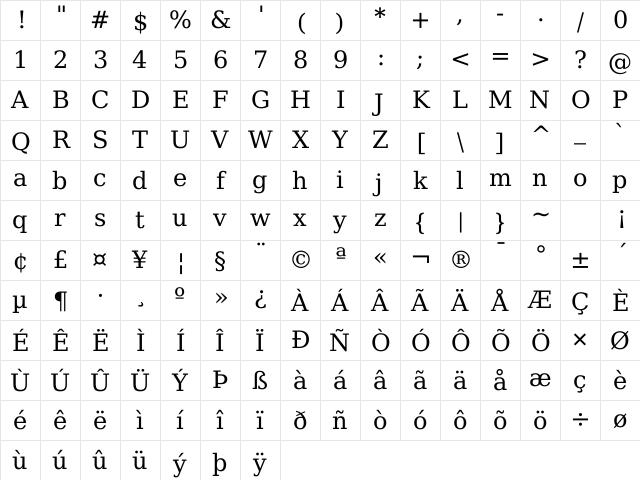
Complete DejaVu Math TeX Gyre Regular glyph index. Displaying only characters natively supported by DejaVu Math TeX Gyre Regular font.
DejaVu Math TeX Gyre is a composed and adaptable typeface that performs quietly and consistently across a wide range of design contexts.